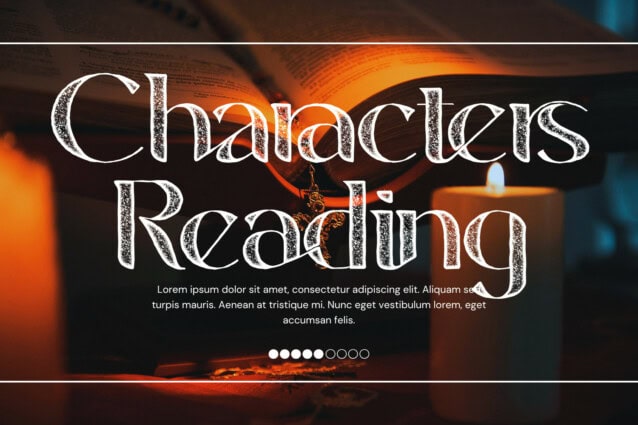
Adventures Vintage Font
Adventures Vintage Font is a vintage font that exudes class and timelessness. This decorative typeface is perfect for formal occasions and projects that require a touch of elegance. With its intricate details and ornate curves, it brings a sense of heritage and tradition to any design. Perfect for logos, branding, apparel, and more. Unlock vintage charm with Adventures Vintage.
Adventures Vintage was built with OpenType features and includes 100 ligatures, alternate, numbers, punctuation, and it also supports other languages.
ac ad al an ar as at au av be ca ce ch co ct de di ea ec ed ee el em en ep er es et fe fo fr ge ha he hi ho ie ic il in io ir is it ju ke la le li ll lo ly ma me mi nc nd ne ng no nt ns oc of om on oo op or ot ou ow pa pr ra rd re ri ro rs rt se sh si so ss st ta te th ti to tr tt um un ur ve wi wo